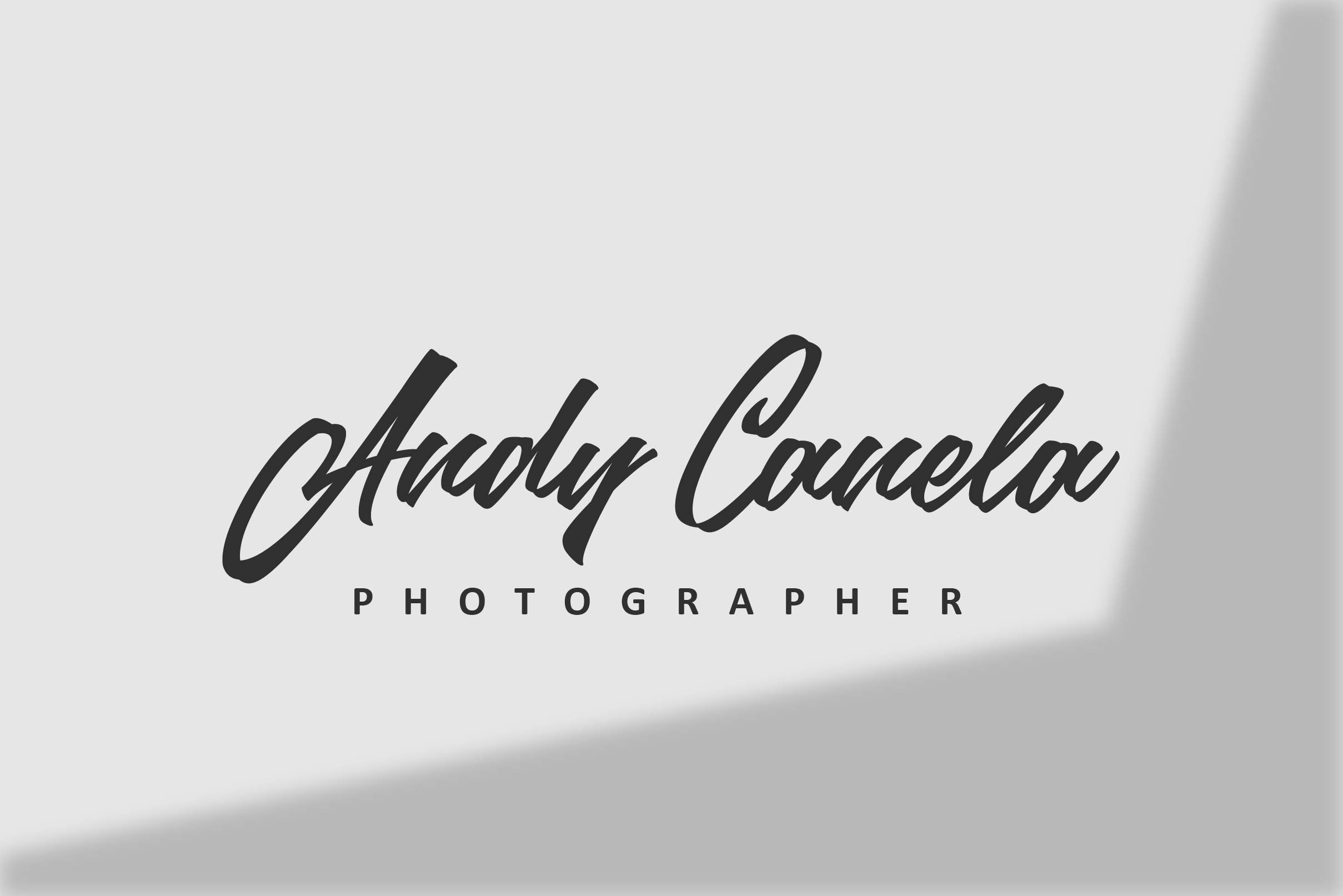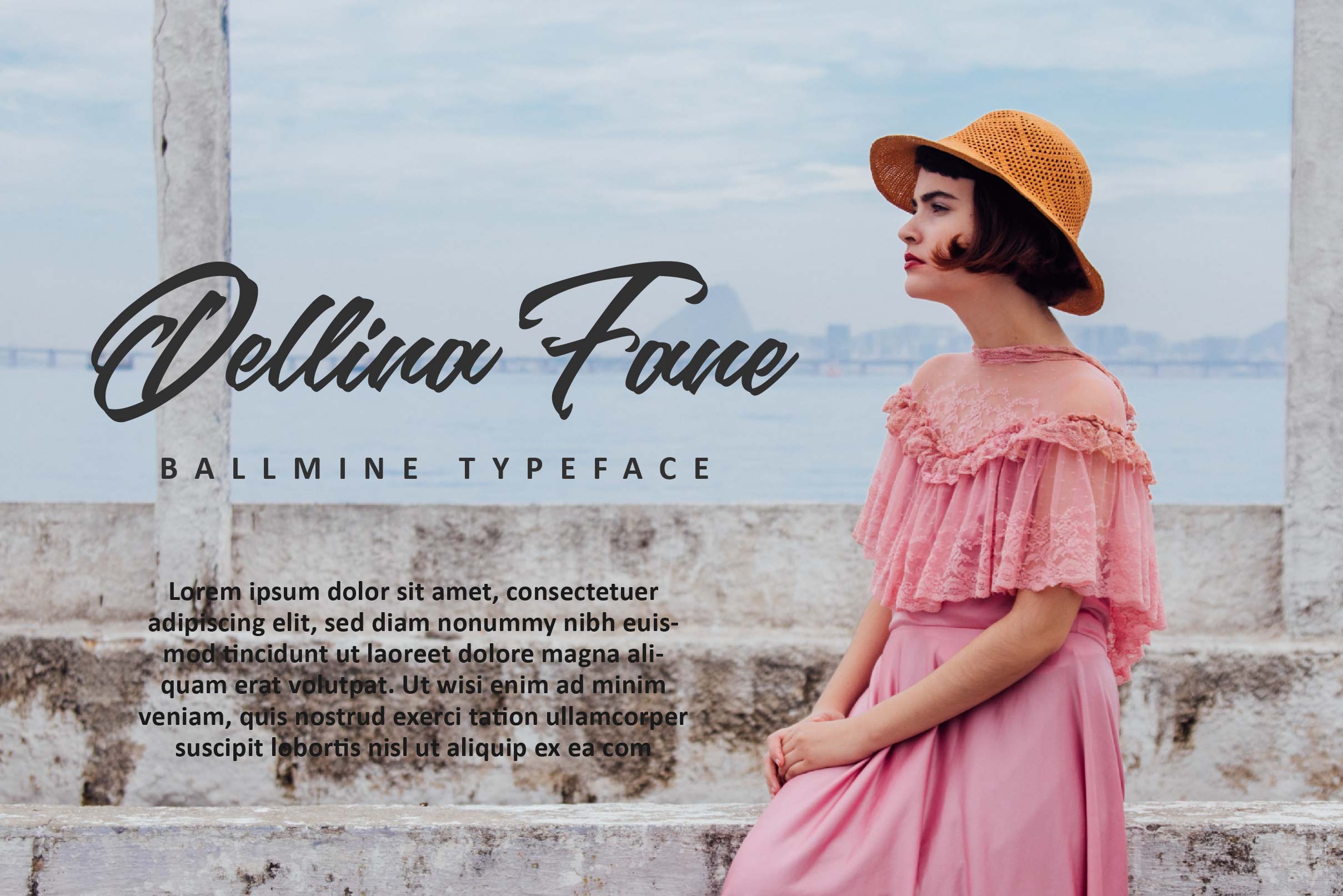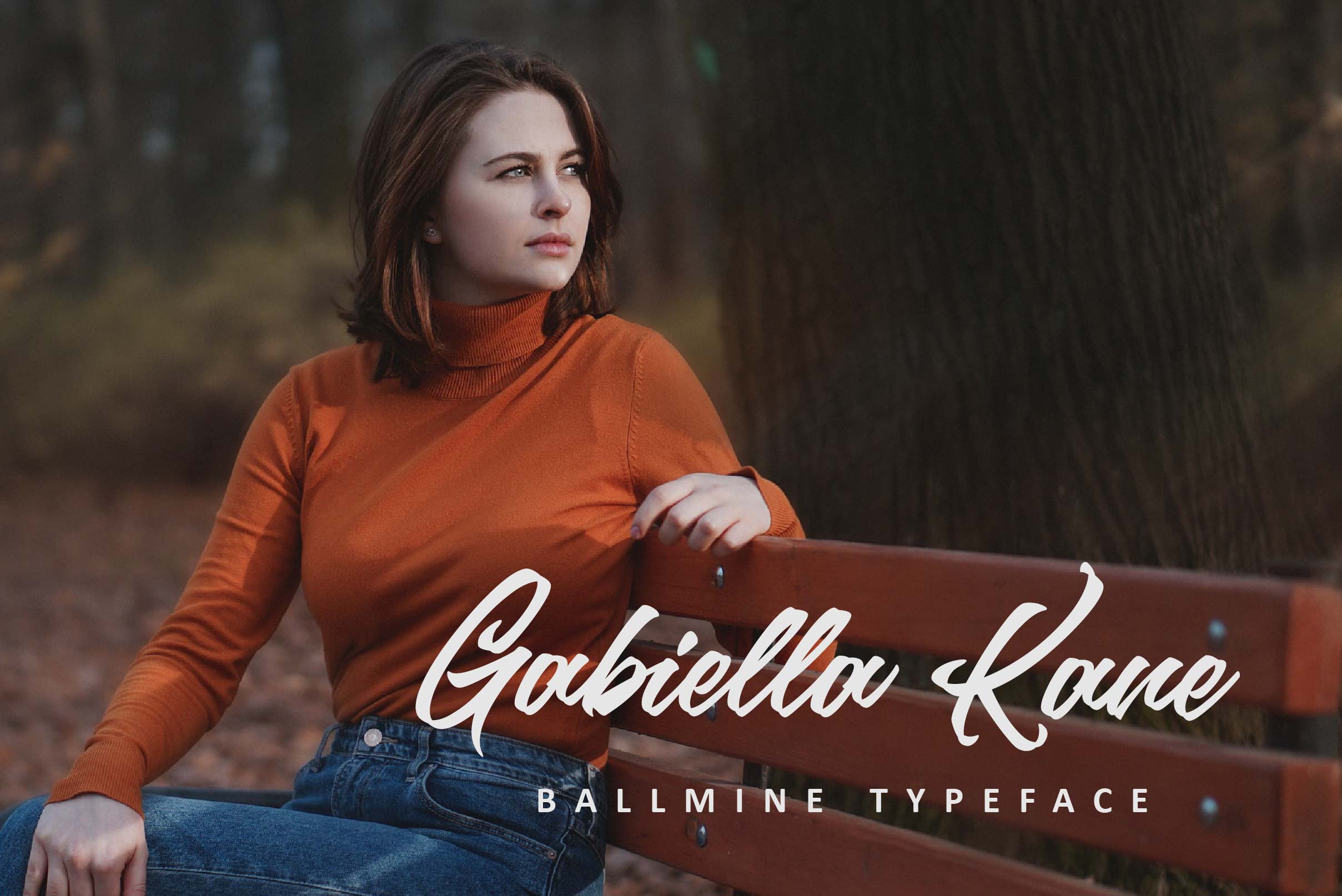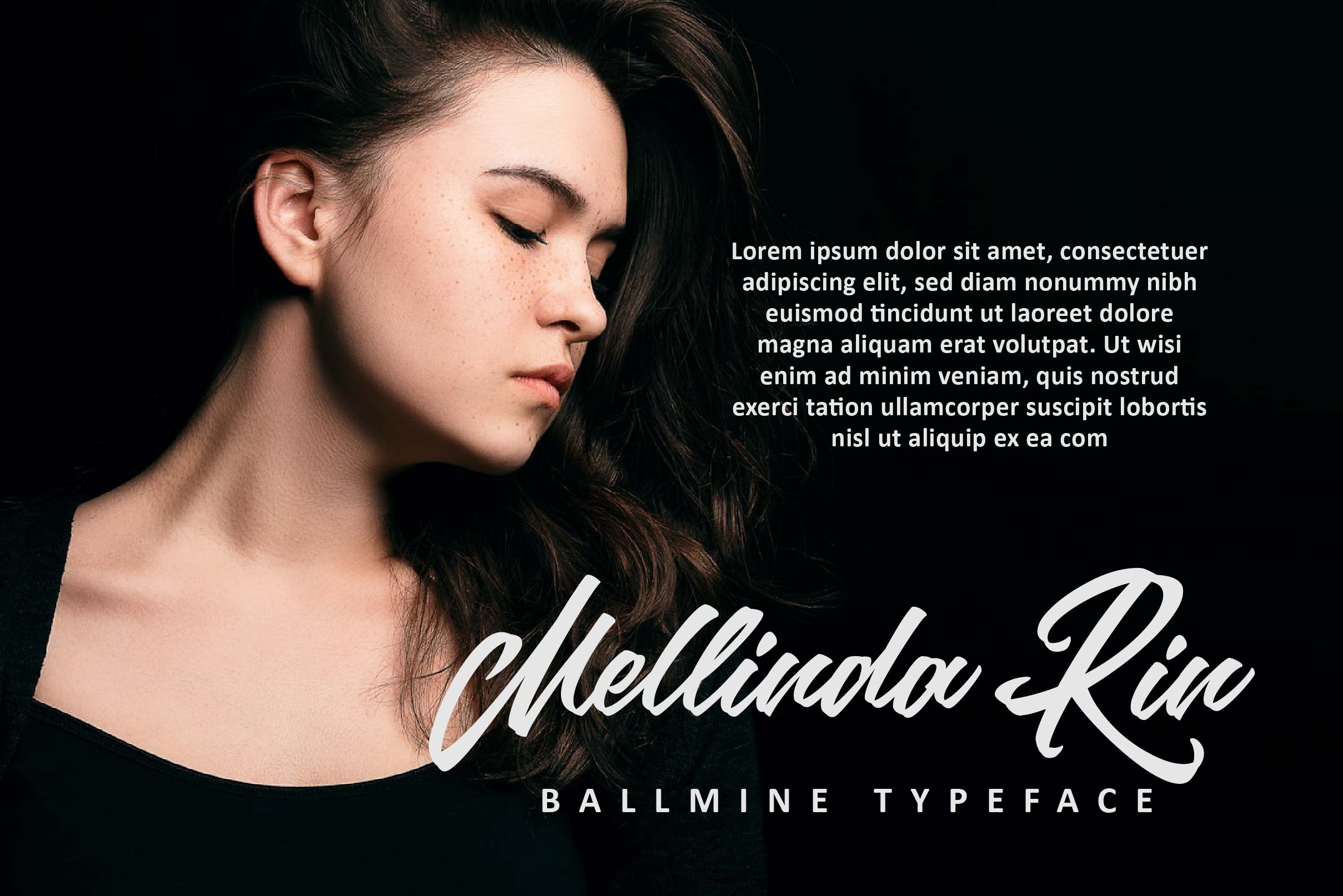
Ballmine Font
Ballmine Script Font is a dazzling and cursive calligraphy typeface with characters that dance along the baseline. It can be used for various purposes such as logos, wedding invitations, headings, t-shirts, letterhead, signage, labels, news, posters, badges and so much more. Ballmine is PUA encoded which means you can access all of the glyphs and swashes with ease!
– Uppercase, Lowercase, Numeral & Punctuation
– Alternate Letters, Ligature & Swash/Tail